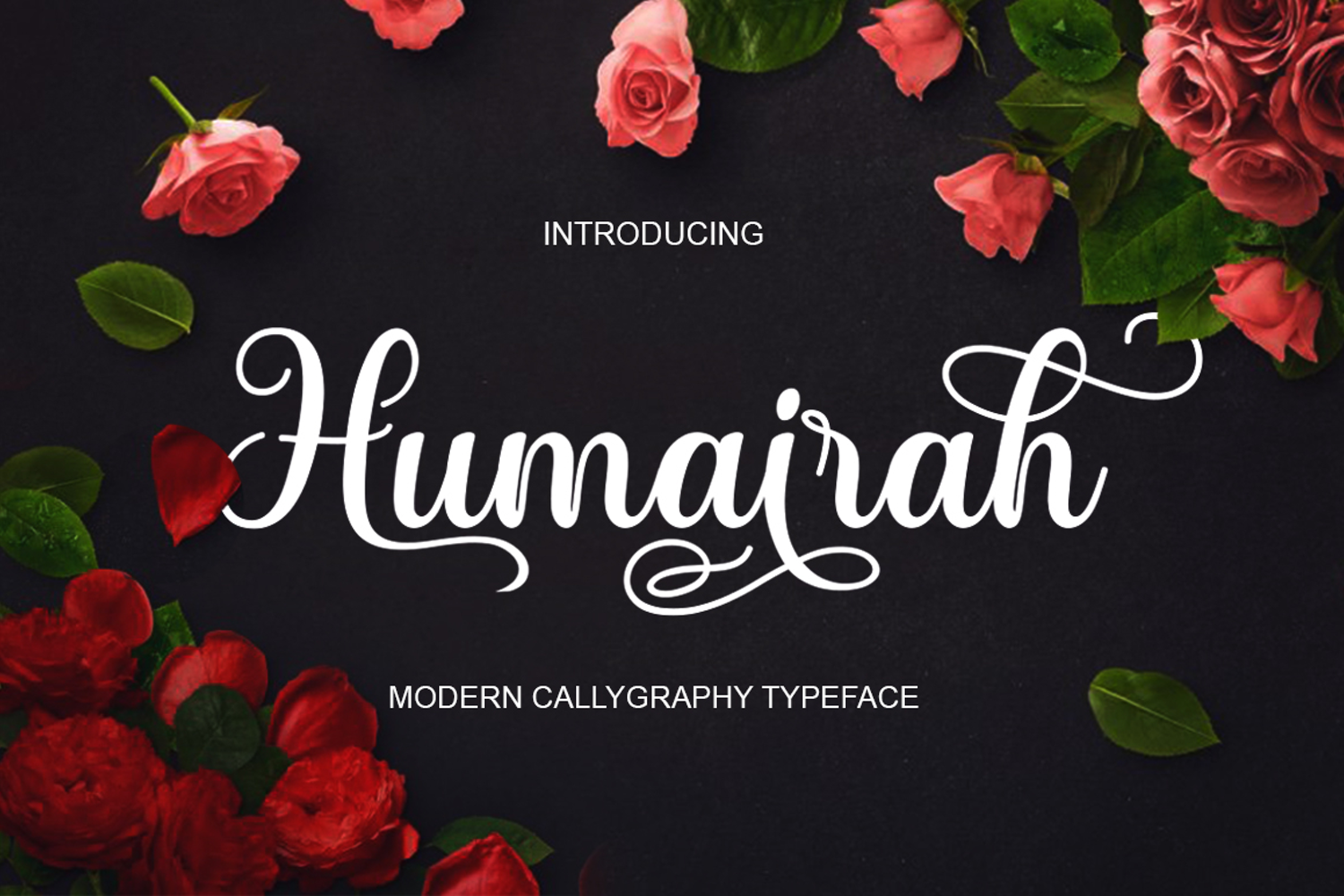
Humairah
Humairah is a new and modern script font. It will elevate a wide range of design projects to the highest level, be it branding, headings, wedding designs, invitations, signatures, logos, labels, and much more!